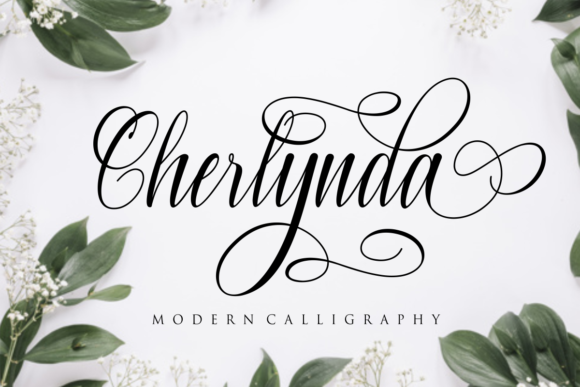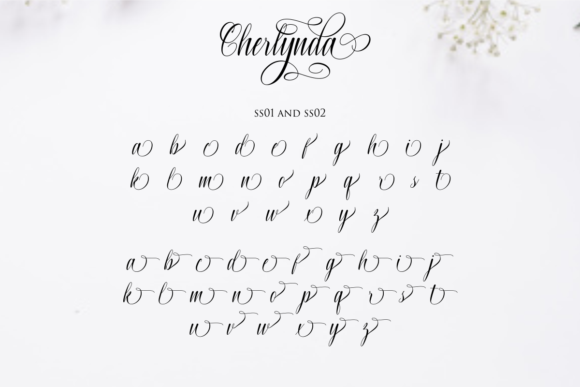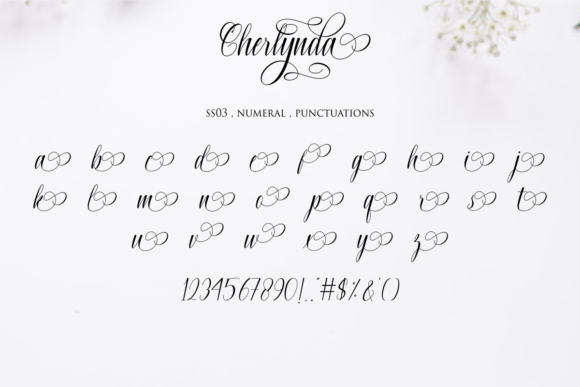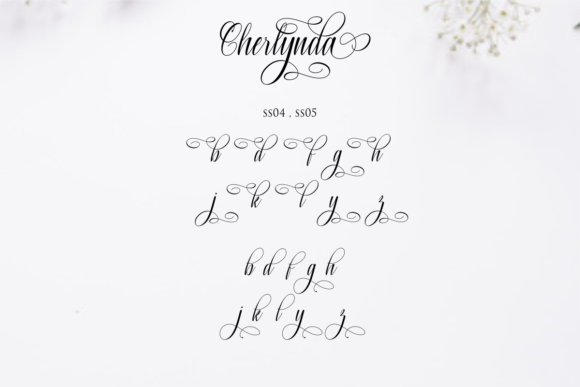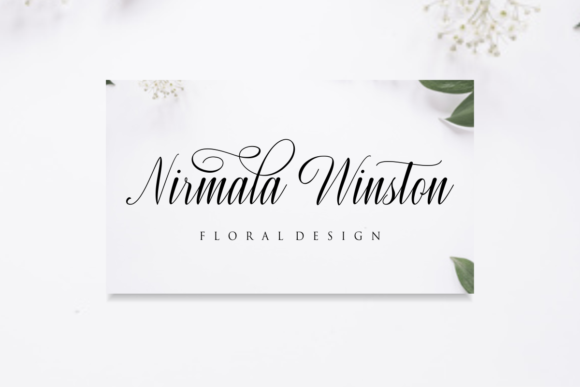
About Cherlynda Font
Cherlynda is a captivating and graceful handwritten font that effortlessly blends elegance with modernity. Its smooth lines and varying baseline create a sense of fluidity, making each letter flow harmoniously. Crafted with precision, this font showcases stunning alternates and gorgeous glyphs, adding an extra touch of sophistication to your designs.
Cherlynda’s timeless calligraphic influences shine through, evoking a sense of refined beauty and classic charm. Its tasteful strokes add a sense of grandeur, making it ideal for formal occasions, such as wedding invitations, black-tie events, and luxurious branding.
Despite its classical inspirations, Cherlynda also exudes a contemporary vibe, making it equally well-suited for modern design projects. Whether you’re creating sleek logos, stylish social media graphics, or eye-catching business cards, this font adapts seamlessly to any context, breathing life into your visual ideas.
The font’s versatility knows no bounds, making it a perfect choice for a variety of creative ventures. From elegant stationery and sophisticated packaging to expressive quotes and inspirational art, Cherlynda elevates each design to the highest levels of artistic expression.
Pairing Cherlynda with other fonts can lead to magical results. Its complementary alternates and swashes effortlessly blend with various typefaces, enhancing the overall visual appeal of your designs and creating an unforgettable brand identity.
Cherlynda’s elegance and sophistication are bound to captivate anyone who encounters it. Its flowing lines and refined aesthetics convey a sense of confidence and beauty, making a lasting impression on your audience.
So, fall in love with Cherlynda’s timeless charm, and let it be the guiding force behind your most ambitious creative endeavors. Embrace the font’s versatility, and allow it to elevate your projects to new heights, leaving a lasting impact on those who experience its exquisite beauty.